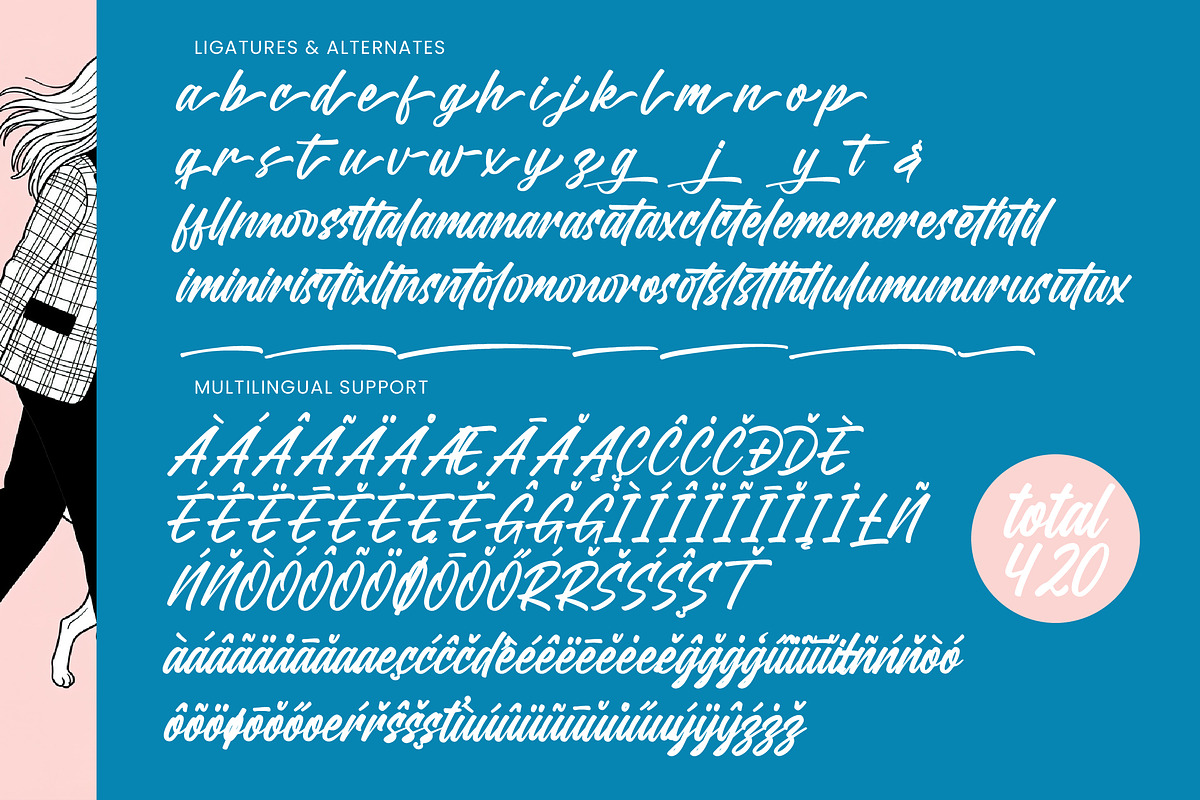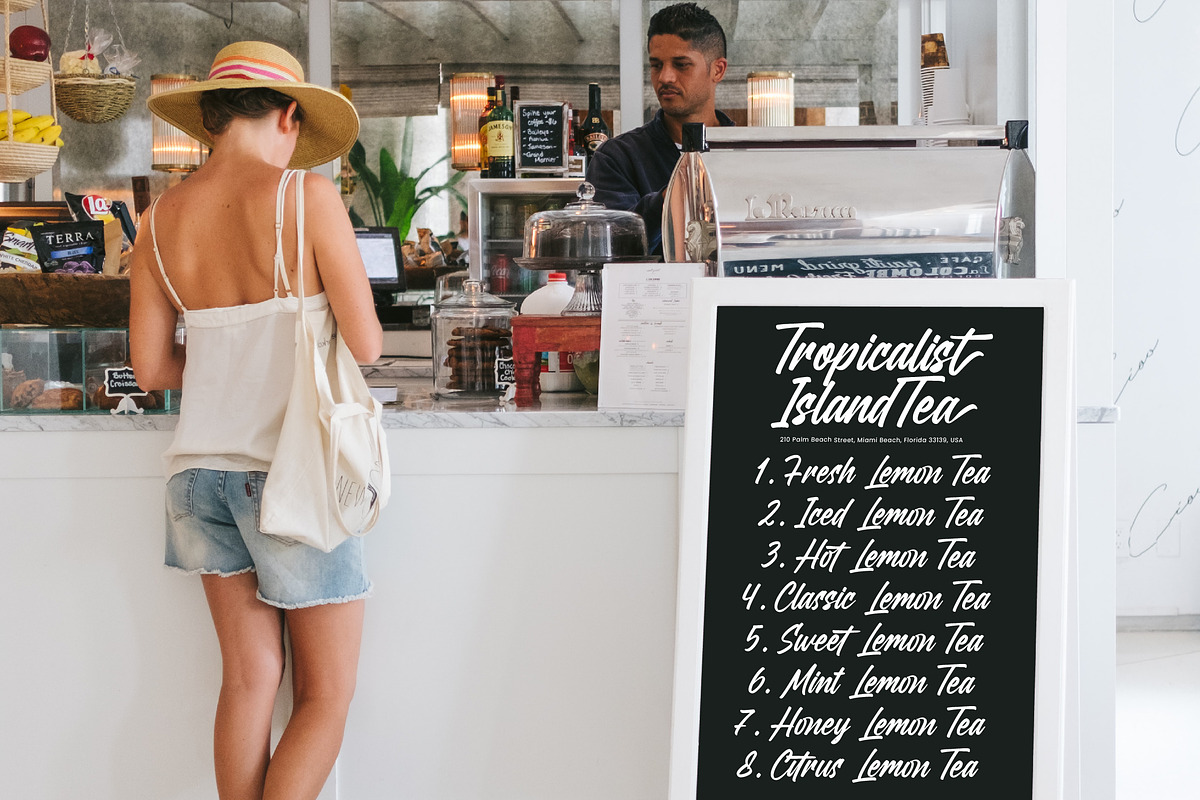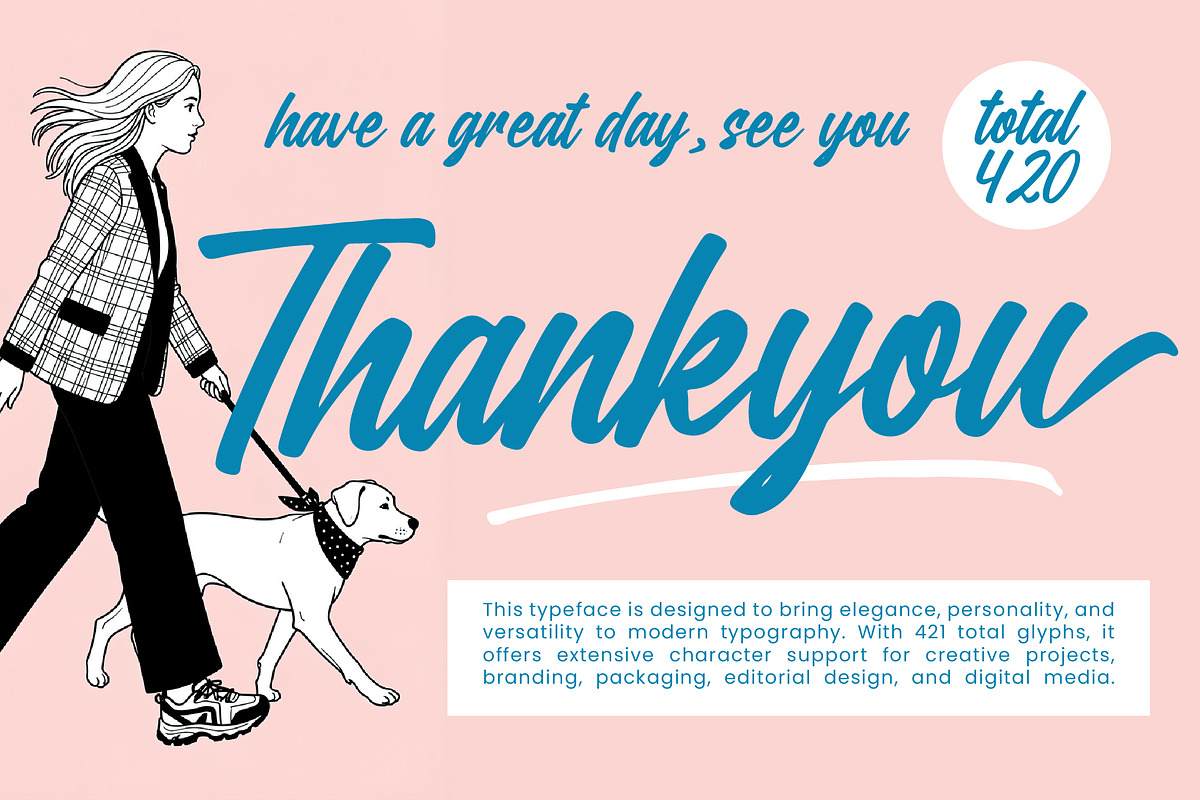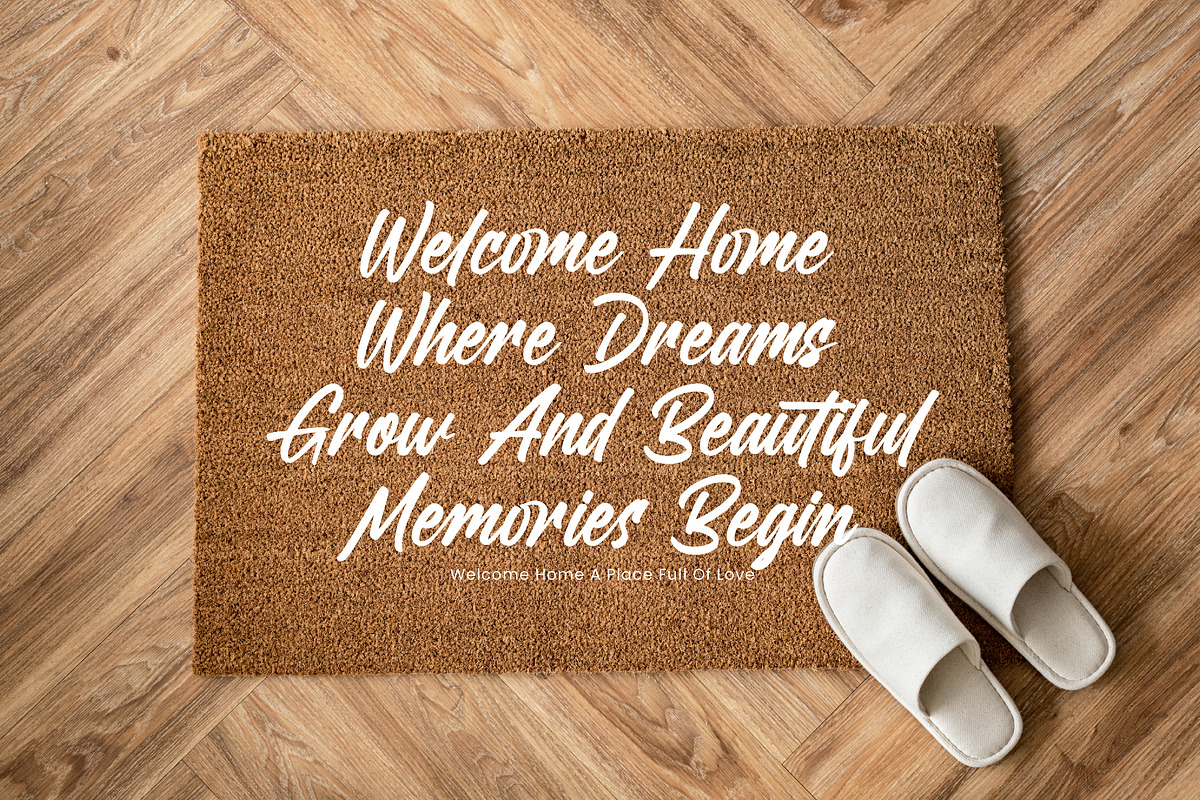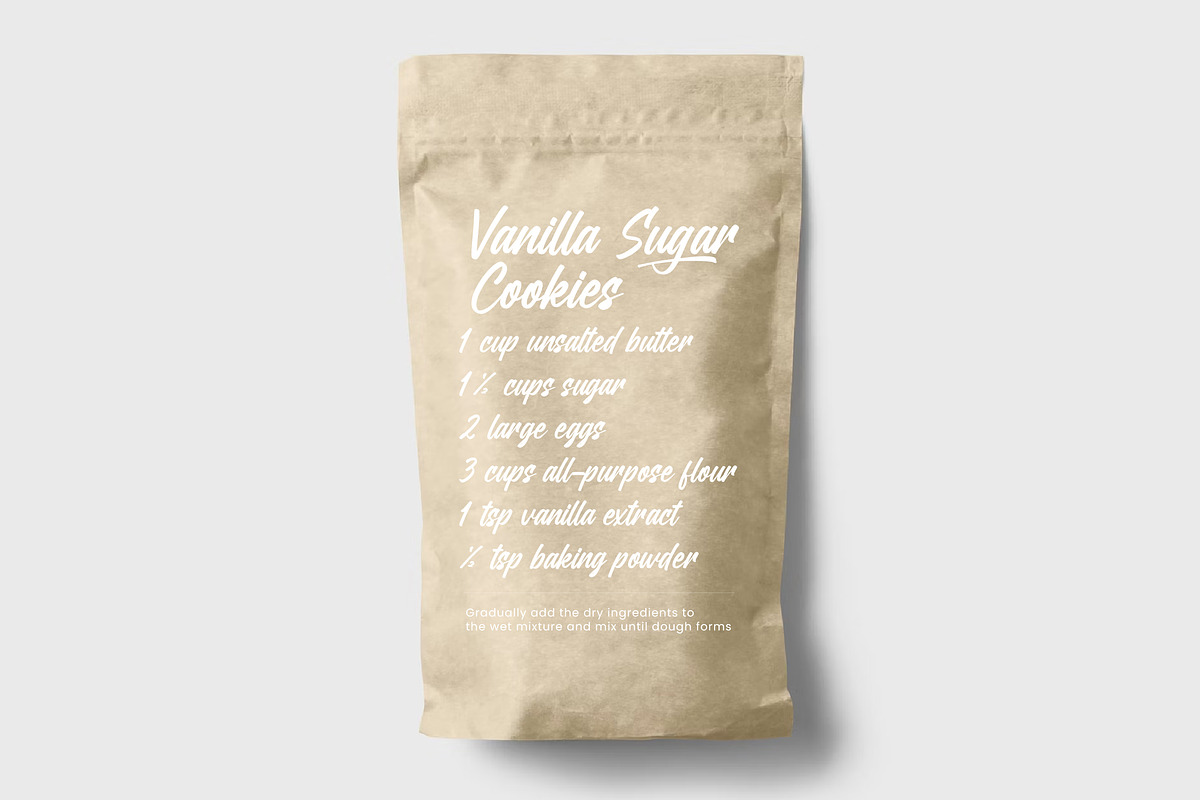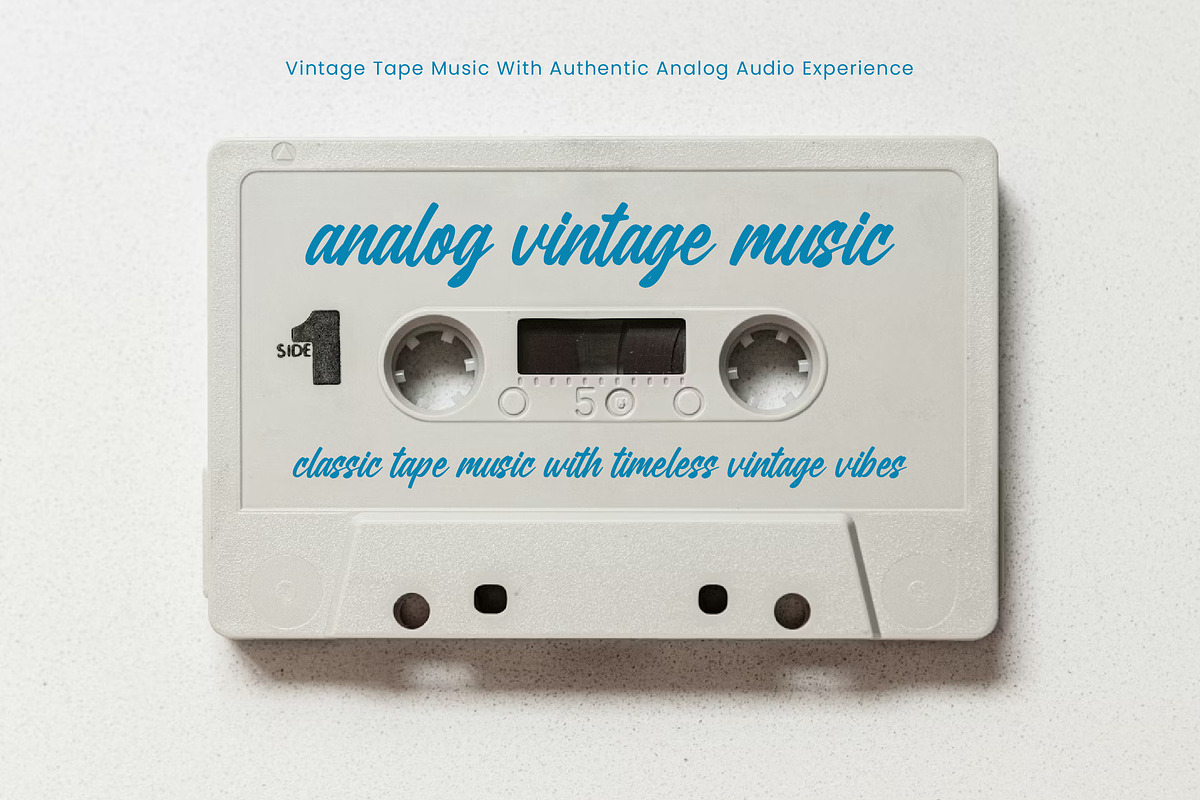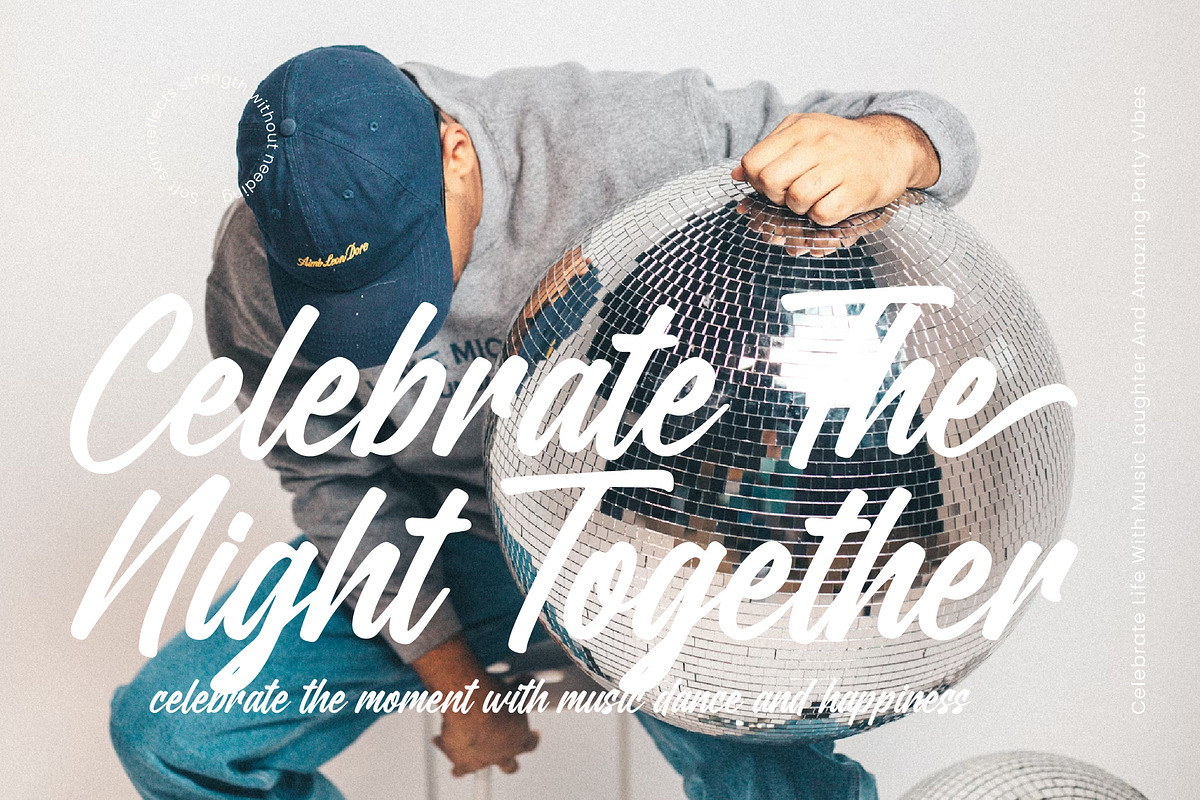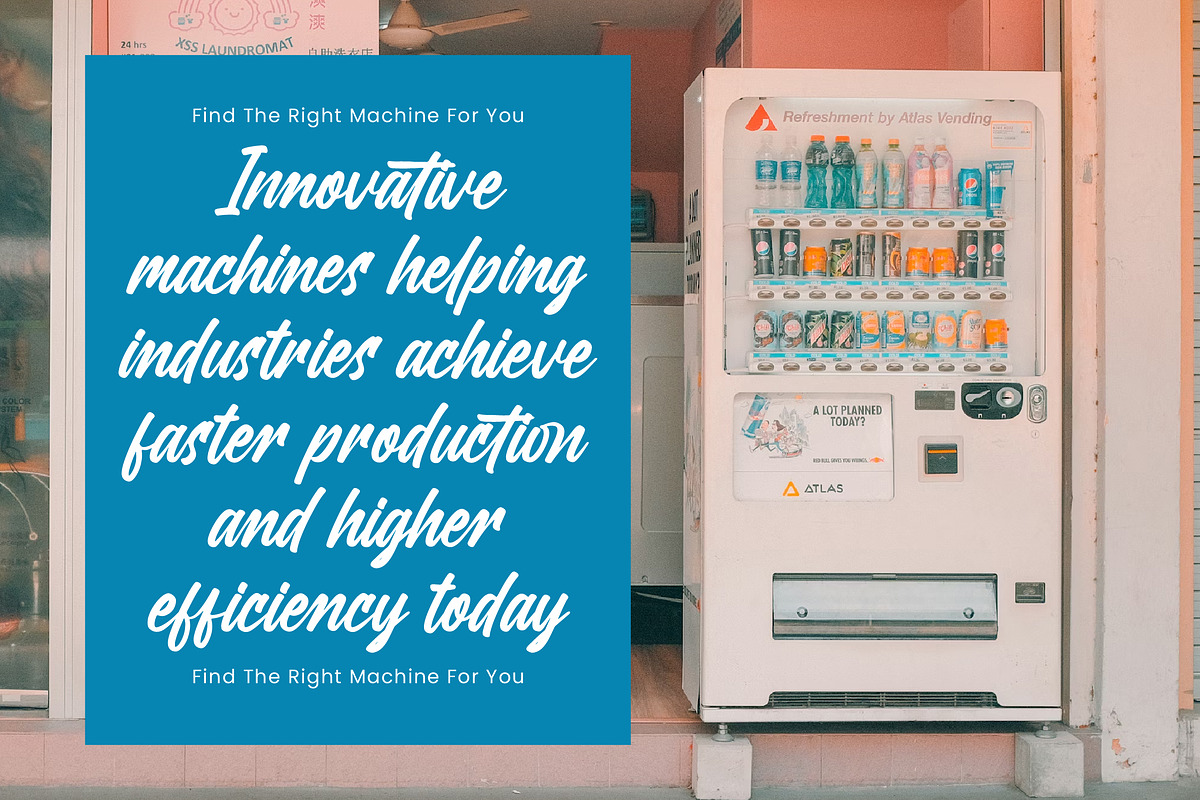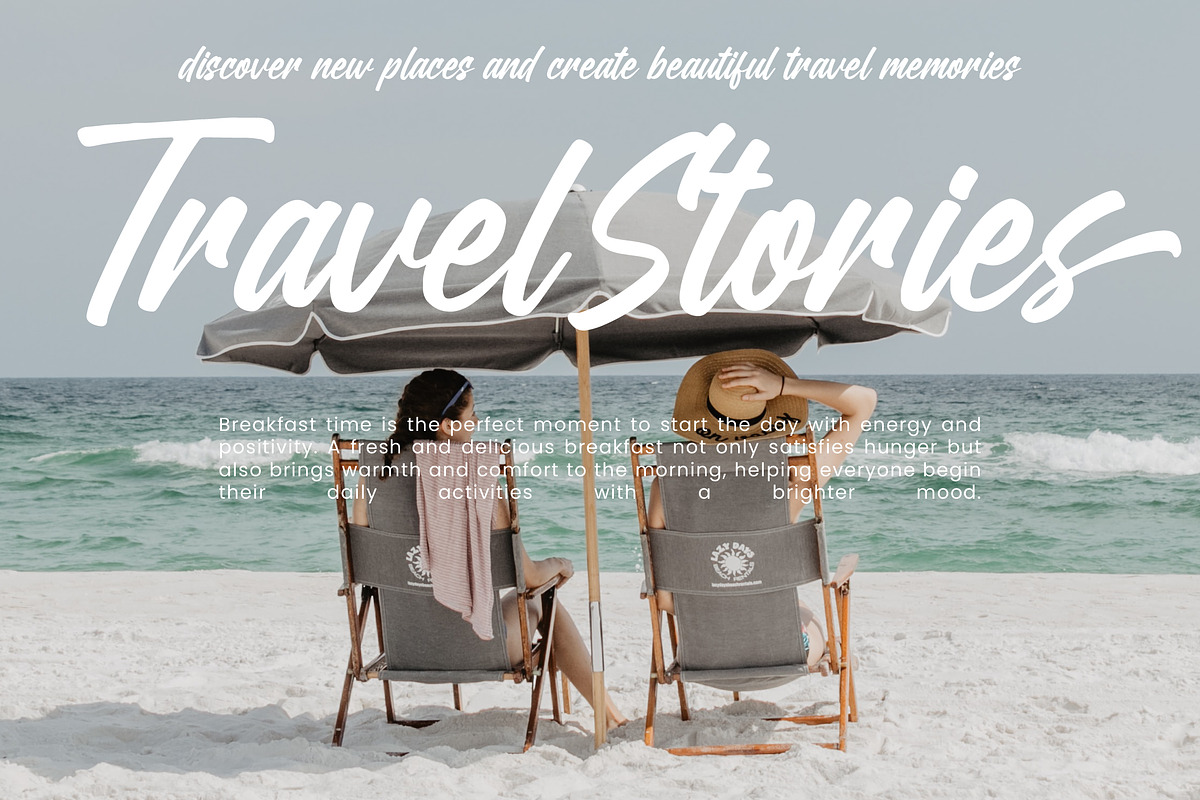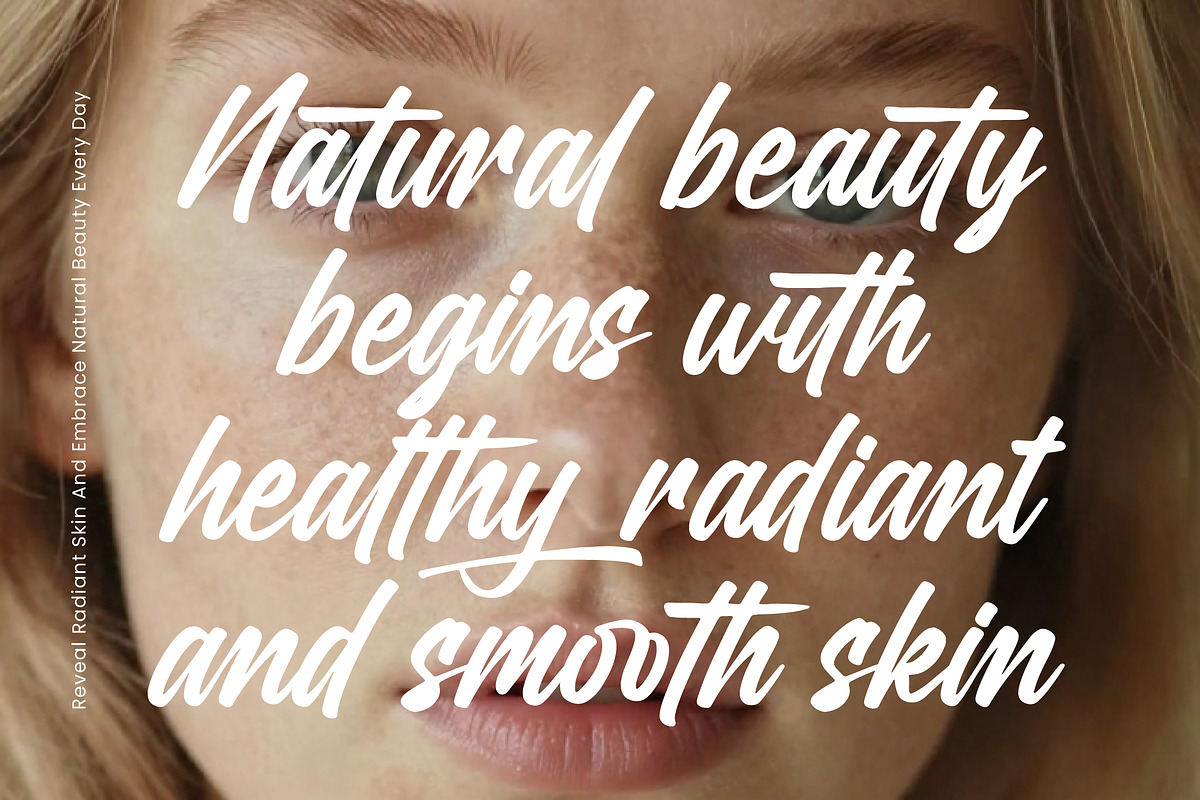
Delaghes - Bold Script Font
Delaghes - Bold Script Font , Elevate your creative vision with a typeface that embodies both power and grace through its expressive, hand-drawn architecture. Delaghes - Bold Script Font offers a contemporary aesthetic that combines heavy, confident strokes with fluid transitions to create an undeniable visual impact. This font is specifically crafted for designers who need a dynamic personality that commands attention while maintaining a sense of organic elegance and professional polish.
Mastering the balance between modern sophistication and artisanal flair, this typeface is the ultimate choice for high-stakes commercial design. Delaghes - Bold Script Font is perfect for luxury branding, premium packaging, and editorial design where a signature-style look is required to establish brand identity. Whether it is used for bold headlines, sophisticated logo marks, or high-end lifestyle magazines, its striking silhouettes ensure that your project stands out in a competitive marketplace.
Engineered for professional standards, this typeface provides the technical depth needed to support complex, high-volume design systems. With its extensive glyph set totaling over 400 characters, Delaghes - Bold Script Font provides unparalleled flexibility for creative customization and glyph variation. With its extensive multilingual support, Delaghes - Bold Script Font adapts seamlessly across global markets, making it incredibly versatile for international projects and ensuring consistent brand messaging regardless of the language requirements.
Transform static layouts into engaging visual narratives with a font designed for immediate recognition and commercial success. Delaghes - Bold Script Font bridges the gap between high-fashion aesthetics and digital media accessibility, making it an essential asset for modern marketing campaigns. By choosing Delaghes - Bold Script Font, you are investing in distinctive typography that brings a bold presence and a refined, human touch to every digital or print medium.